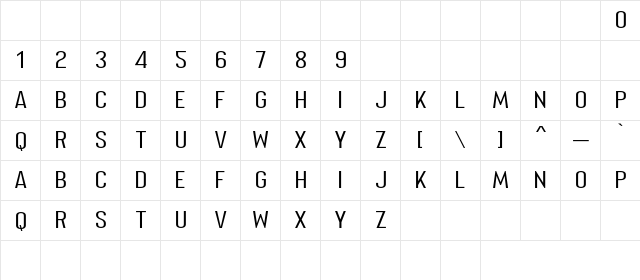
Merhique Light
Design Context for Merhique Typeface
Merhique is a composed and adaptable typeface that performs quietly and consistently across a wide range of design contexts. Its slender proportions lend an understated elegance to any composition.